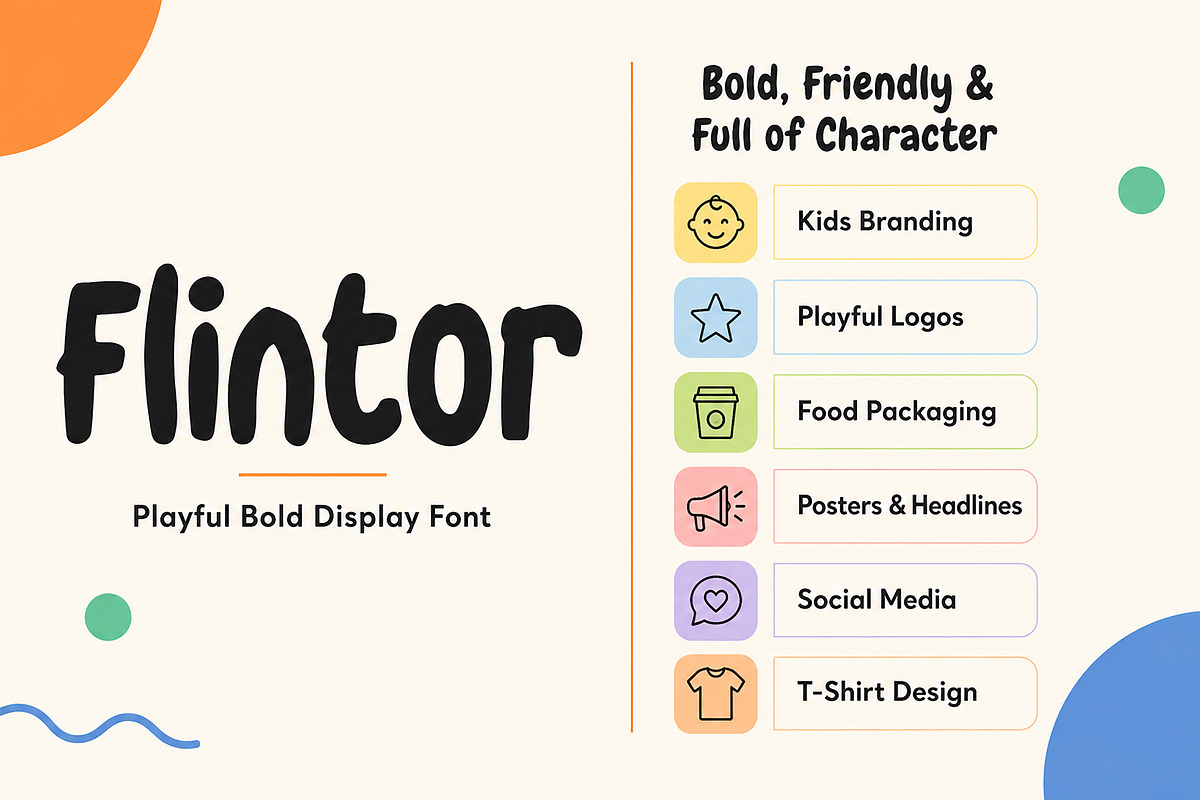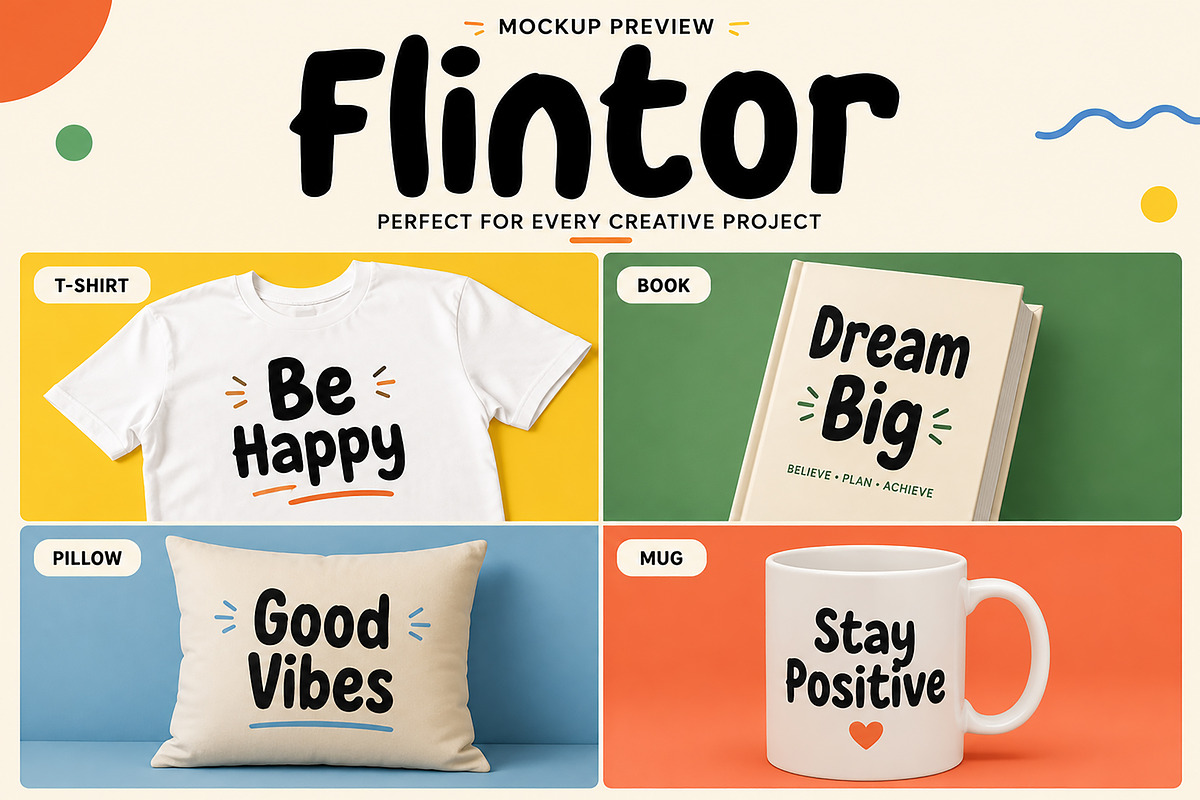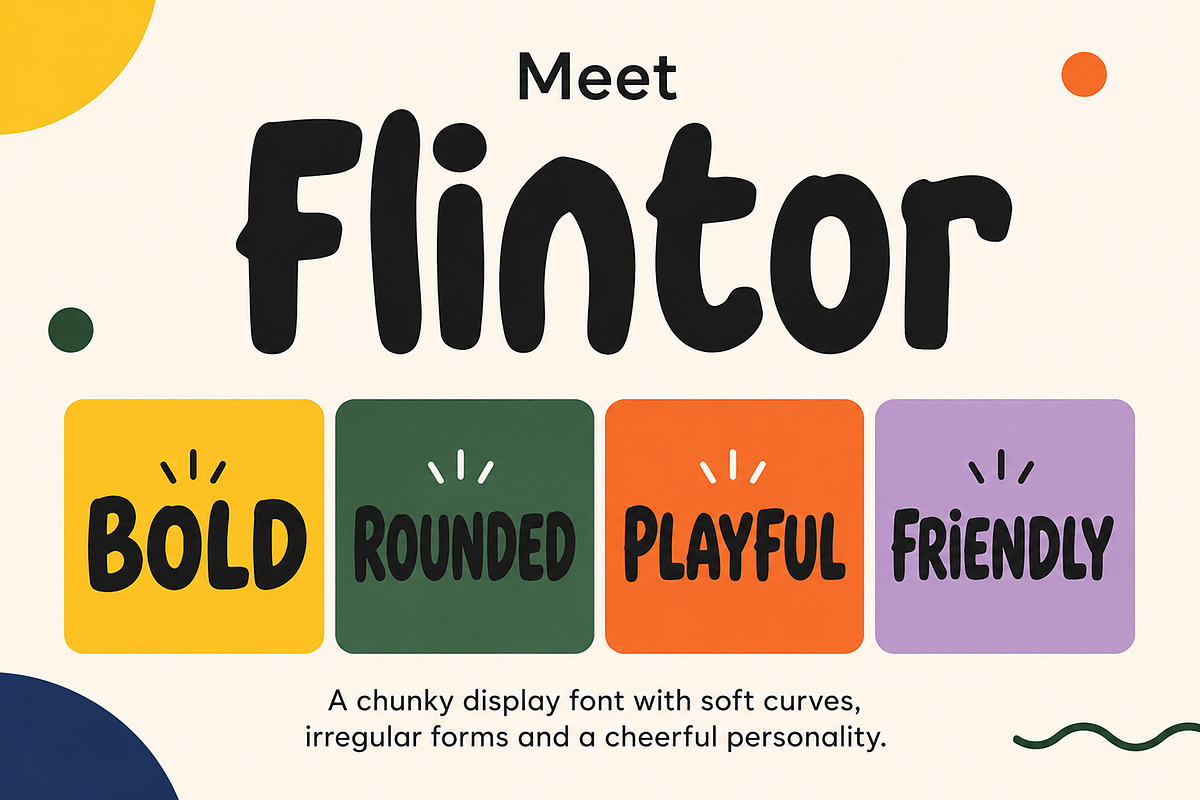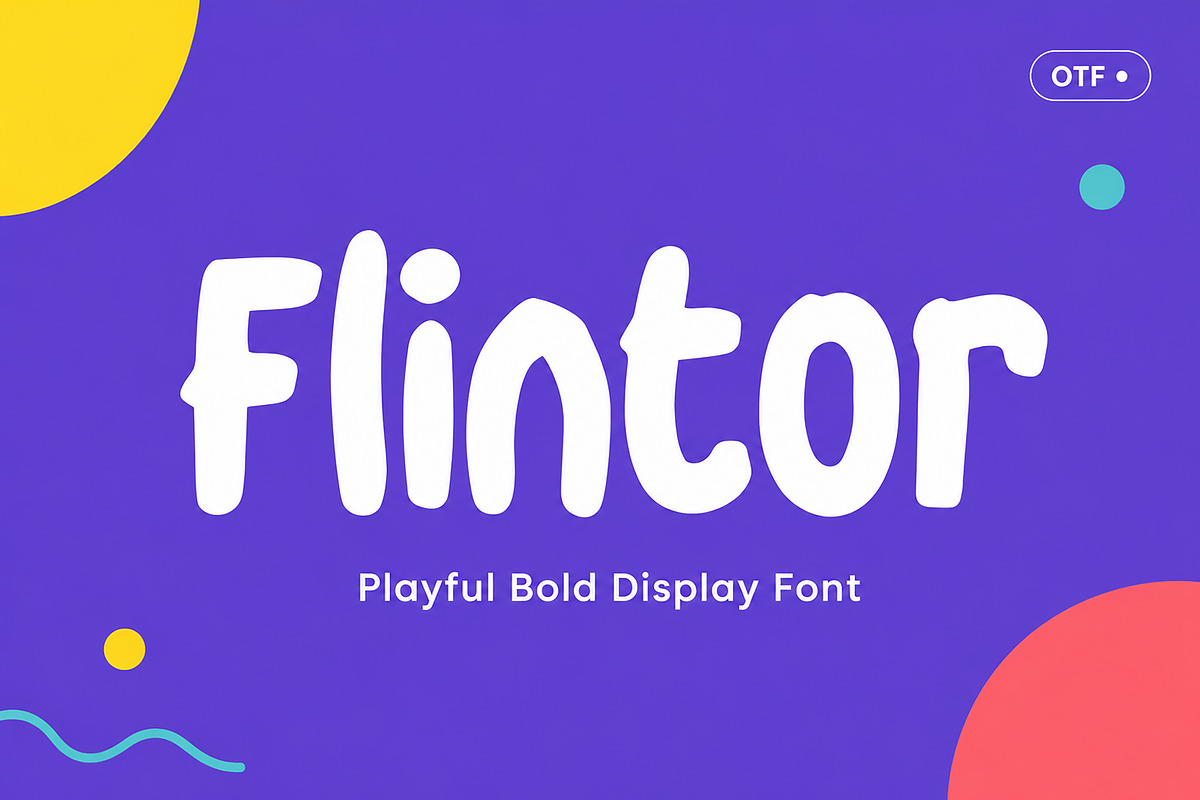
Flintor
Flintor – Playful Bold Display Font
Description
Flintor is a bold, playful display font designed to bring warmth, personality, and joy to every creative project. With its chunky letterforms, soft rounded corners, and hand-crafted feel, Flintor instantly creates a fun and approachable look while remaining clean and highly readable.
Whether you're designing children's books, branding, packaging, posters, social media graphics, or cheerful merchandise, Flintor delivers a friendly visual voice that stands out with confidence.
Its irregular organic shapes and smooth curves give every word a lively personality, making it perfect for projects that need to feel energetic, modern, and memorable.
Kids Branding
Children's Books
Toy Packaging
Food & Beverage Branding
Café & Bakery Logos
Event Posters
Greeting Cards
YouTube Thumbnails
T-Shirt Designs
Stickers
Mug Designs
Pillow Prints
Cricut & Craft Projects
Quotes & Typography Posters
Birthday Invitations
School Events
Creative Advertising
Modern Display Headlines
Uppercase Letters
Lowercase Letters
Smooth Rounded Letterforms
Bold Display Style
Flintor is designed for creators who want typography that feels cheerful, bold, and full of character. Whether used for branding or large headlines, it instantly adds a playful and memorable touch to your designs.